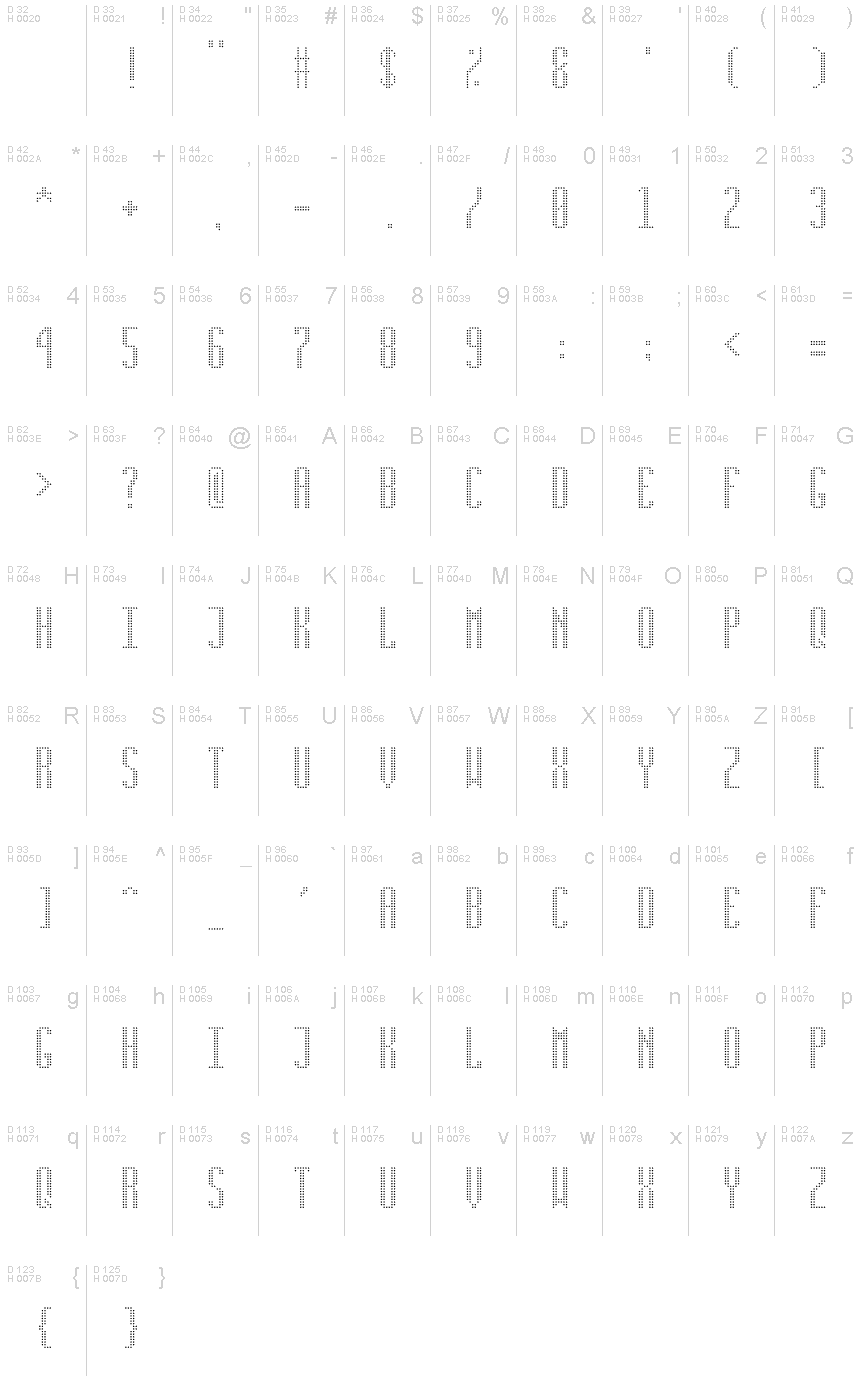
RUNNING LED
RUNNING LED is a sleek and futuristic display font designed by Repiputra Irawan. With its digital style and semi-light weight, this font adds a touch of modernity to any project.
Its extra-condensed width allows for maximum impact in limited space, making it perfect for eye-catching headlines and attention-grabbing logos. Use RUNNING LED in tech-themed designs, gaming websites, electronic product packaging, or any project that needs an edgy and contemporary look.
Let this font illuminate your creative work with its dynamic energy and captivating charm.